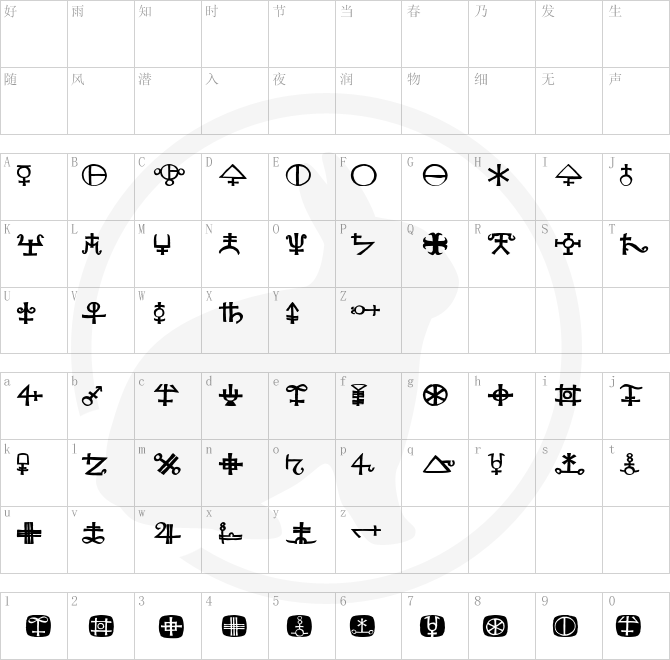
- Copyright:Copyright \(c\) Manfred Klein, 2003. All rights reserved. We remember the creativity of Rudolf Koch, Offenbach, Germany, \240 at 1934, 70 years ago. \(Source: Rudolf Kochs book "Zeichen"\)
SacredOldSymbols.ttf is a very beautiful artistic font, SacredOldSymbols.ttf is widely used in the design and printing of various books and pictures,SacredOldSymbols.ttf has a strong visual impact,SacredOldSymbols.ttf is a commonly used font in newspapers, magazines and books, and is used in posters, e-commerce Poster design, store design, logo design, font design and other fields.SacredOldSymbols.